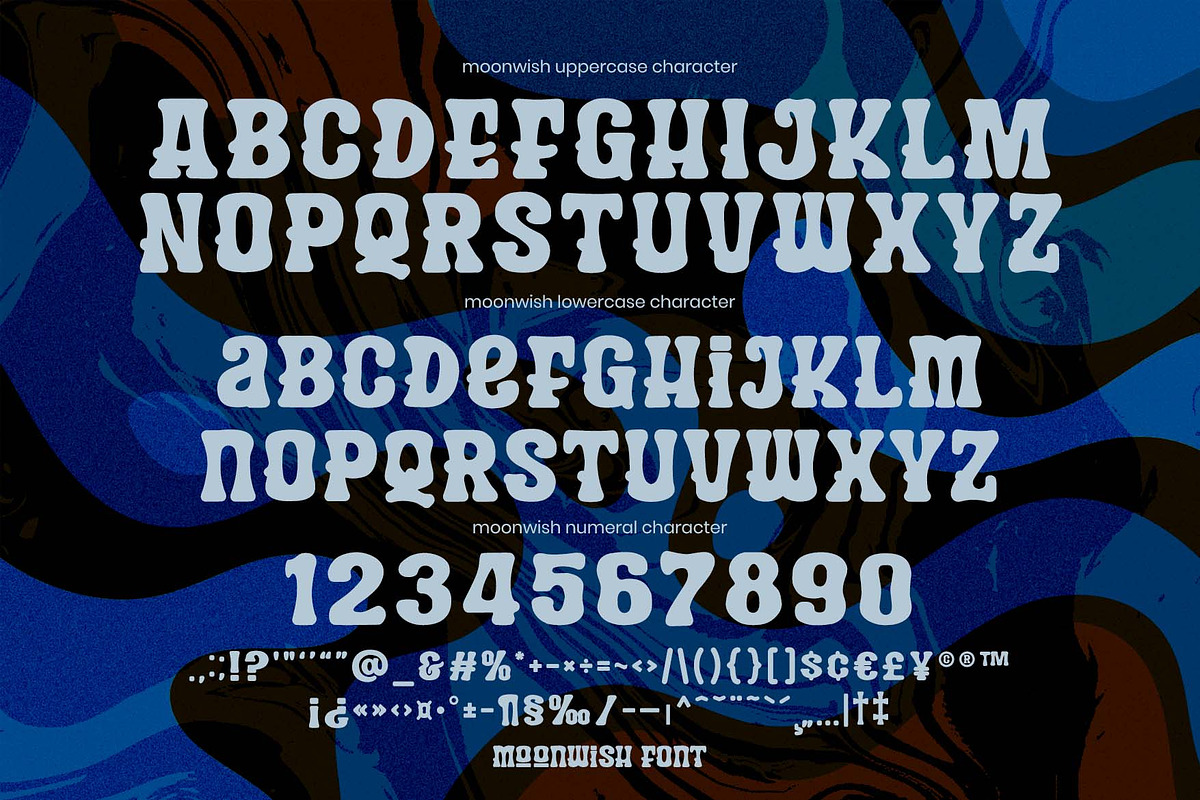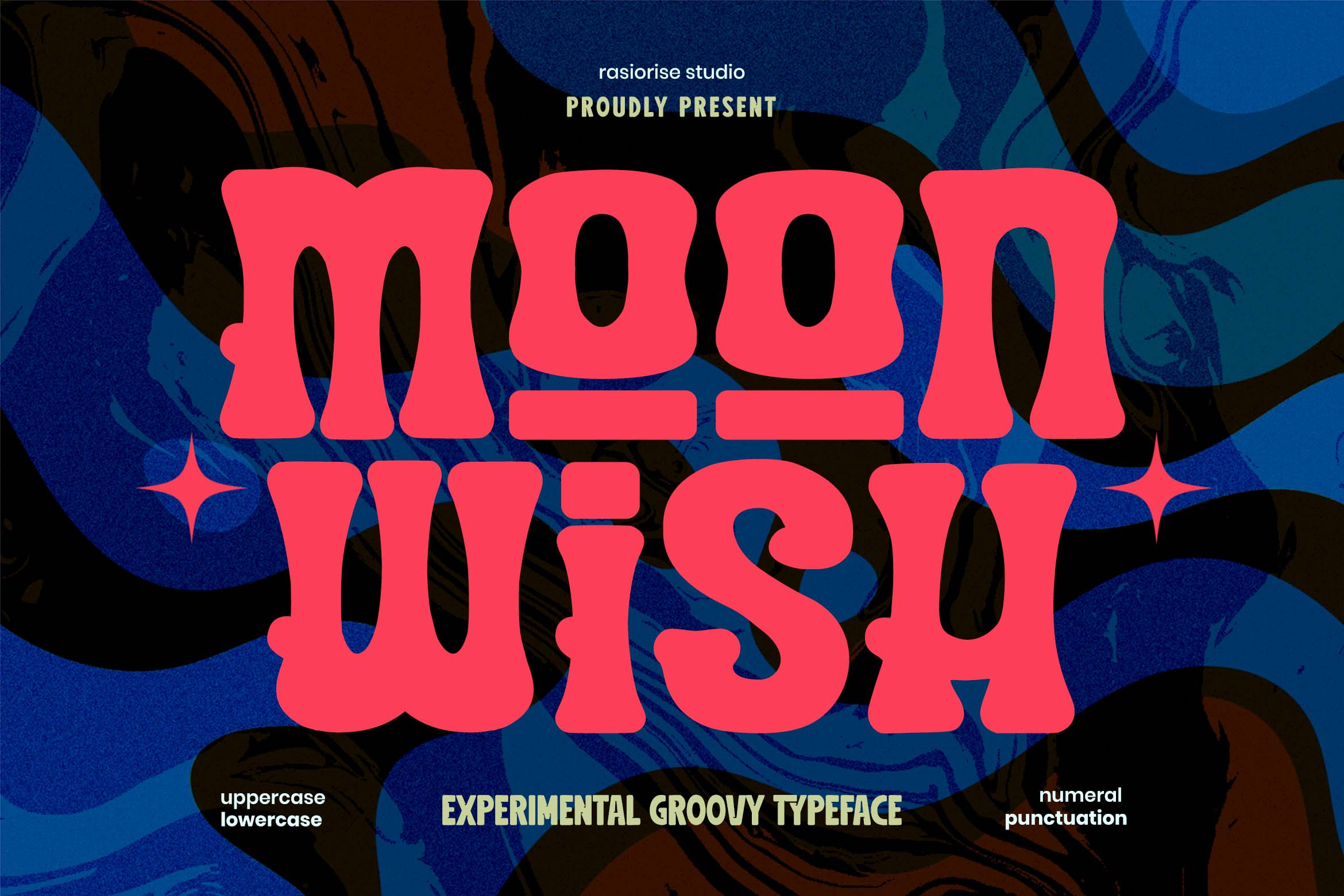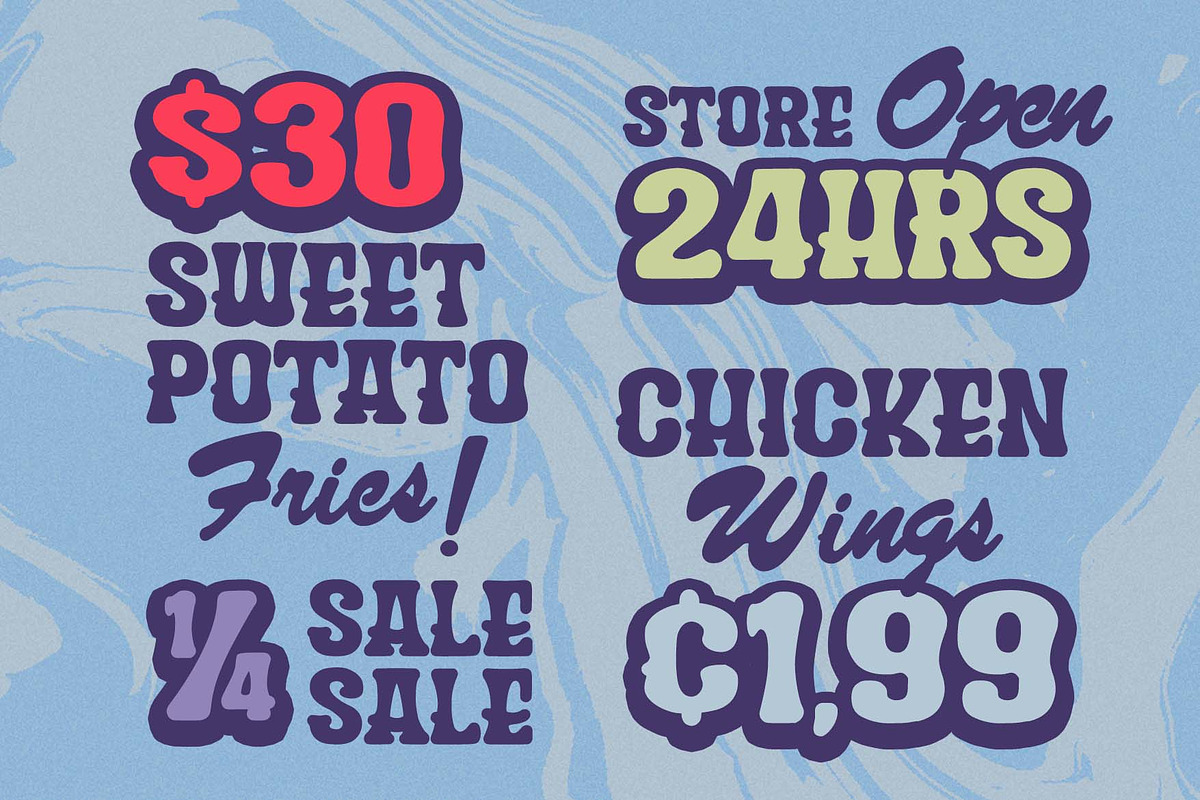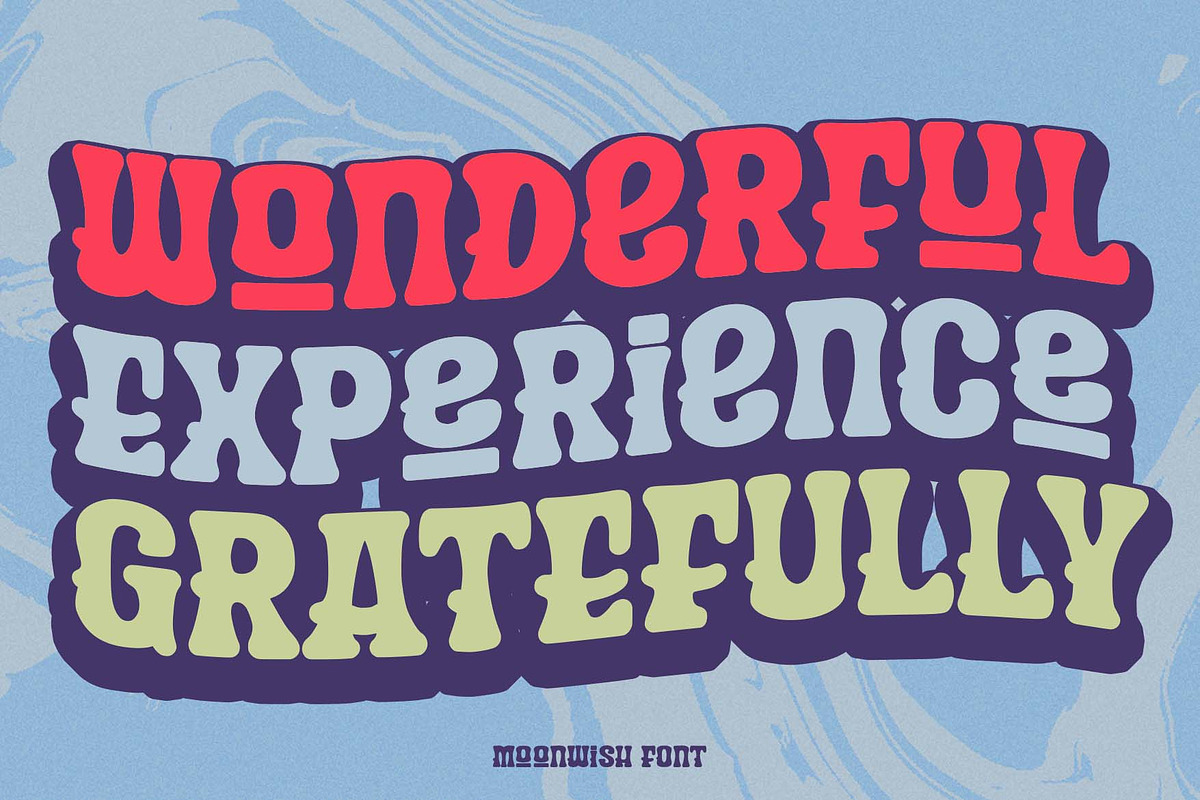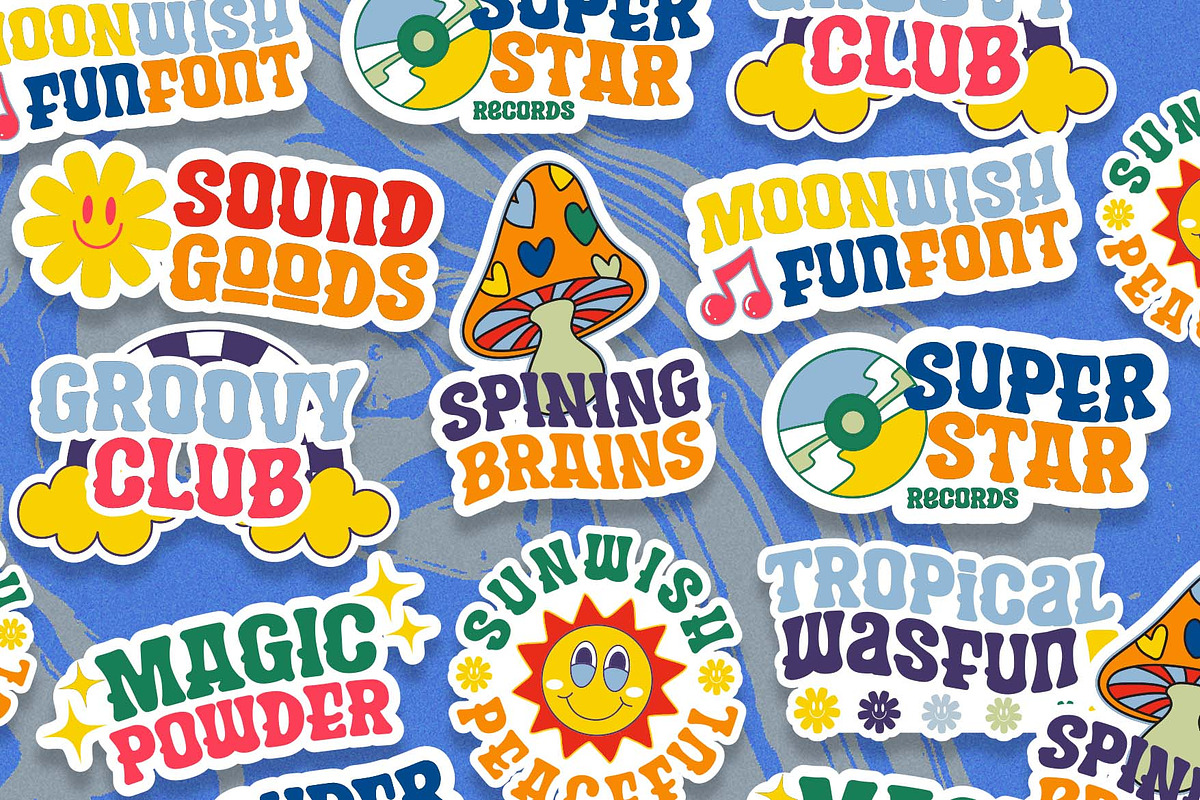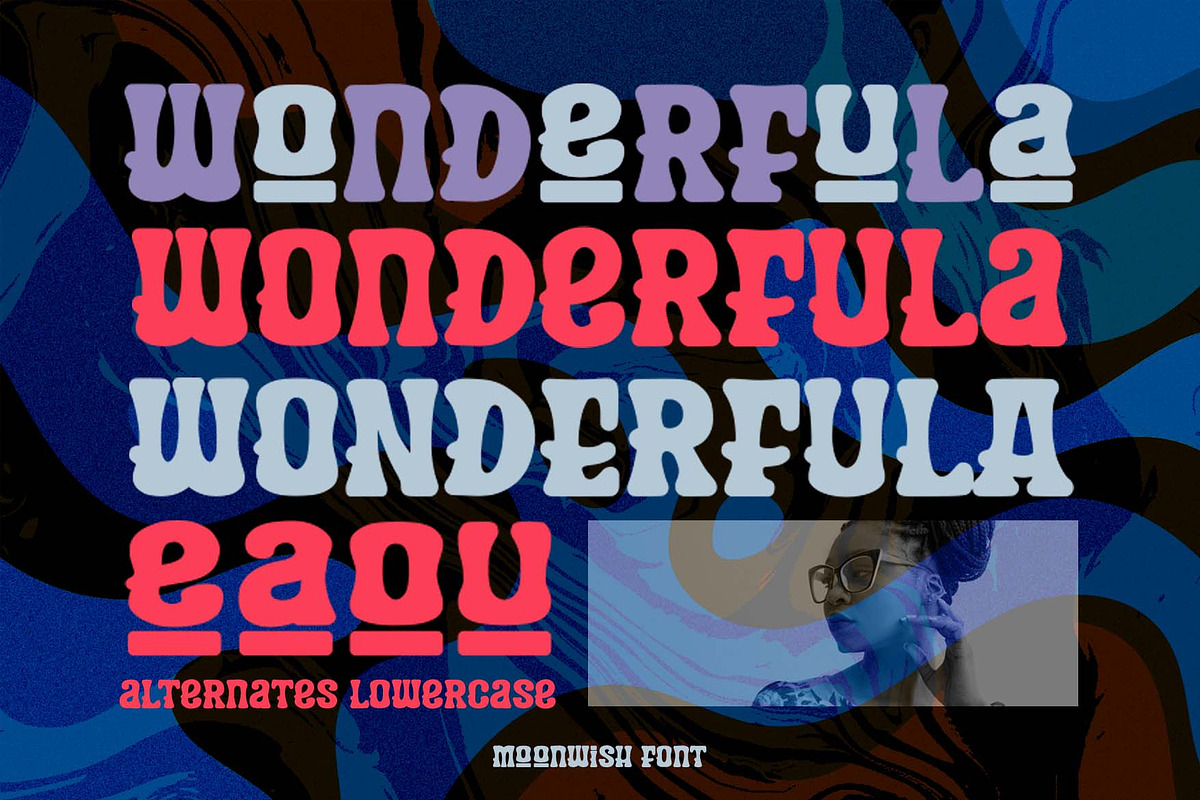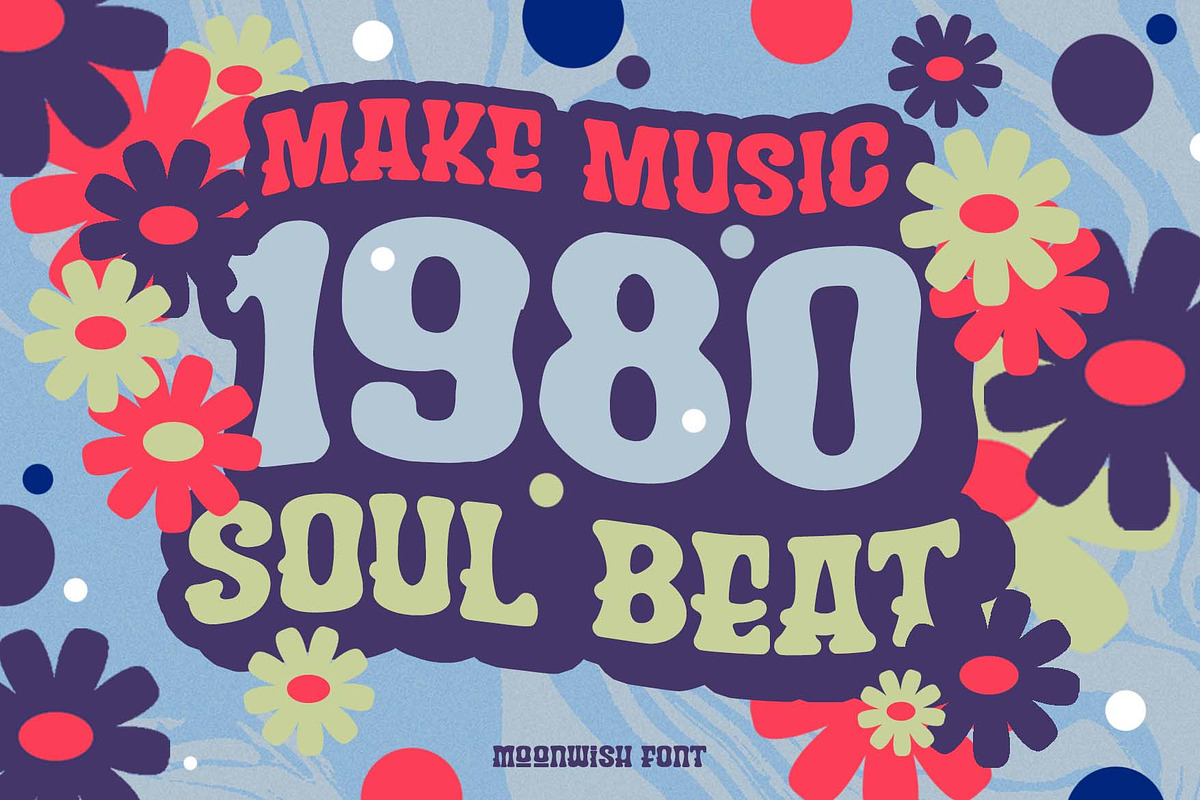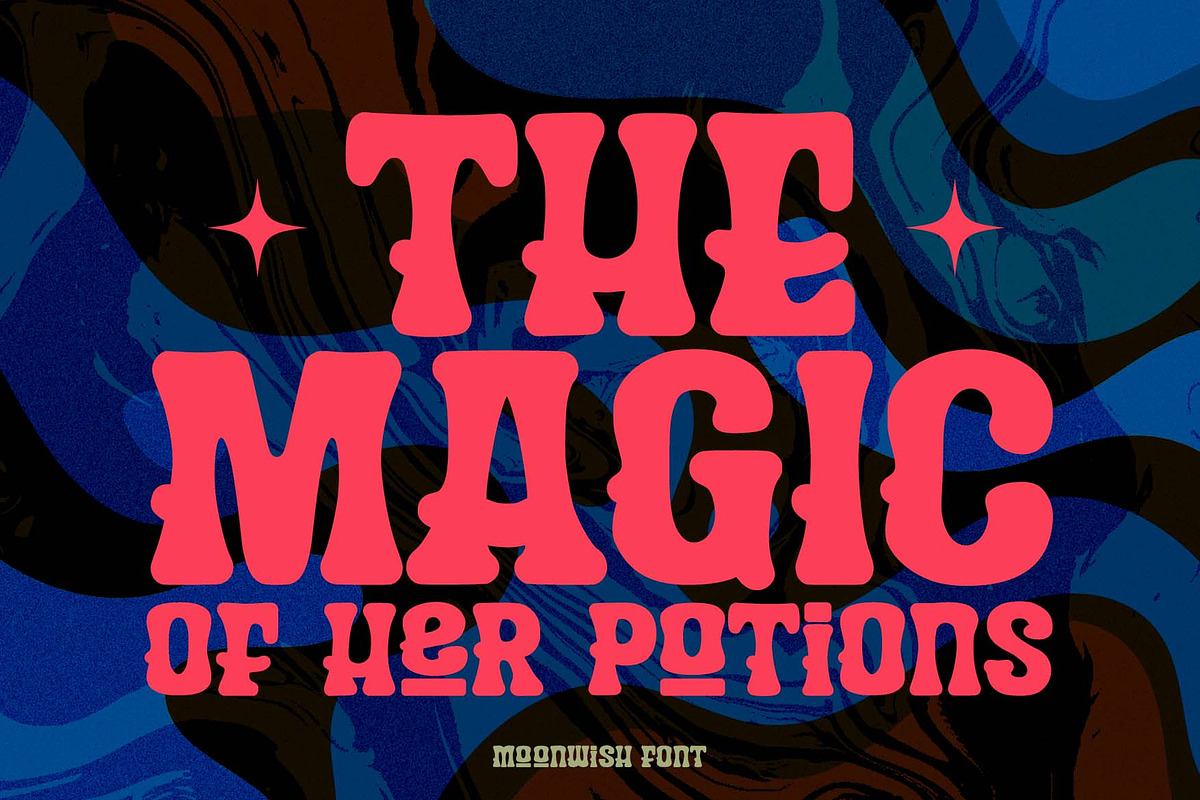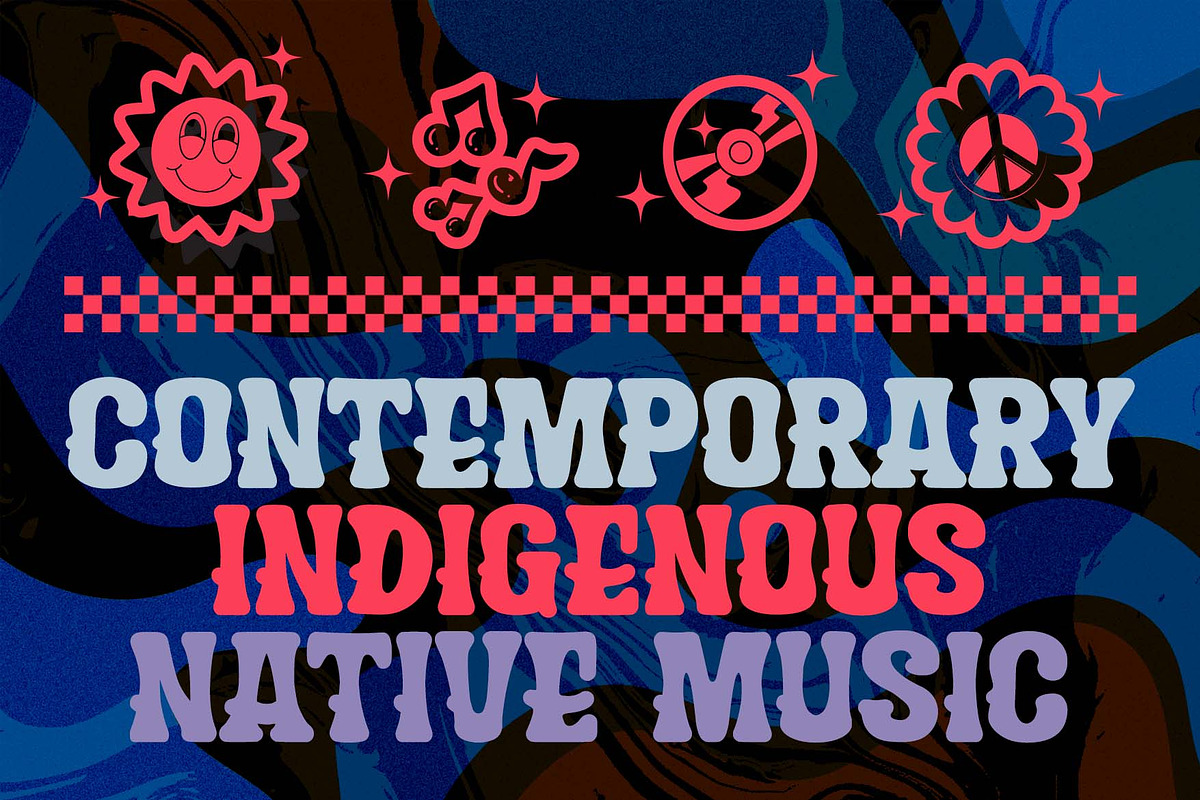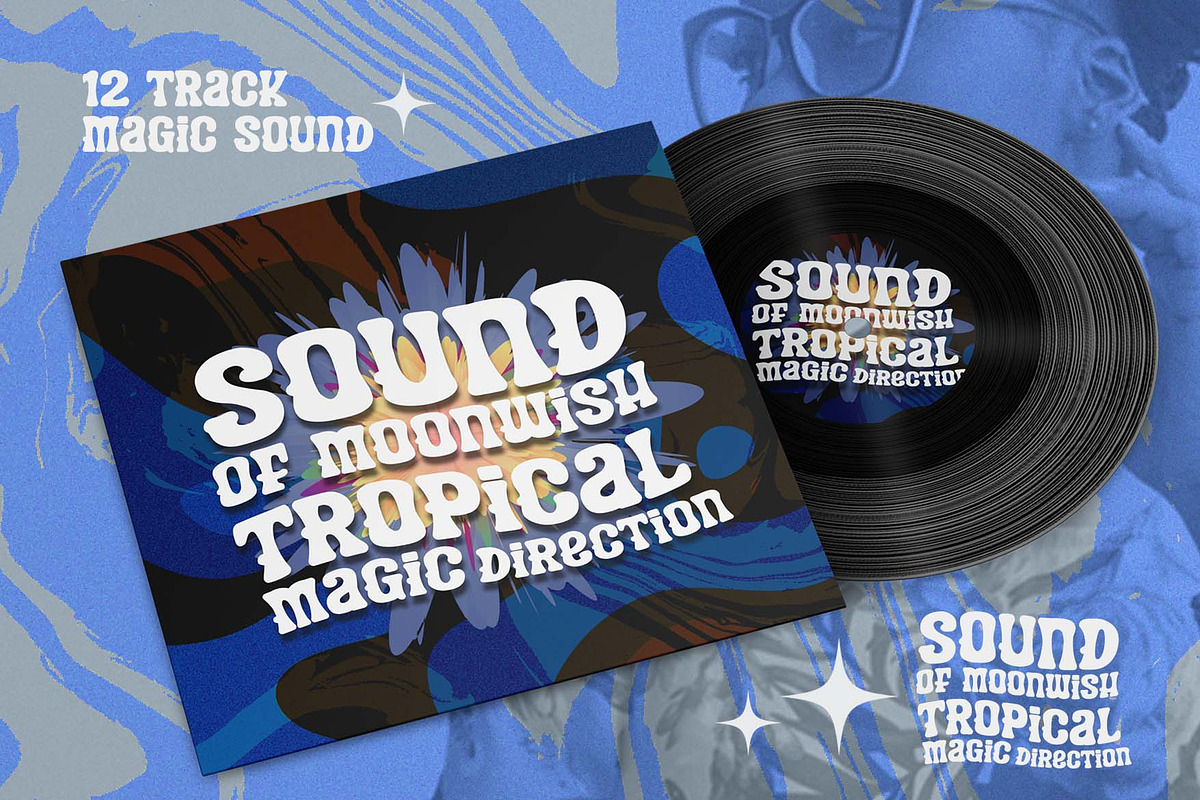
Moonwish a Bold Groovy Font
Hi Everyone! Moonwish has been released for those of you who are looking for a Groovy Cartoon style font, a bold and funky psychedelic font inspired by the free-spirited energy of the 60s and 70s. Moonwish brings retro soul to modern design. wavy letterforms, and trippy character, this font is made for standout headlines. Unleash your great creativity with Moonwish Font, perfect for used to any projects with easy-to-read character, playful, Spiritual and bold font for your project!.
Moonwish Font very suitable for Logotype, Book Cover, Poster Invitation, Gift Card, Gretting Card, Poster, Merchandise, Label, Packaging Label and much more.